Choosing the right font for your poster plays a key role in how your message is received. It can determine whether your message gets noticed, understood, or ignored. From shop window displays to event announcements and marketing materials, fonts play a big role in how your poster looks and feels.
What makes a good font for posters
There are a few design principles that make a font well-suited to posters:
- Readability: Your message needs to be legible from a distance.
- Boldness: Strong lines, clear shapes, and enough contrast help your words stand out.
- Tone matching: Choose a font that fits your brand or the purpose of your poster (e.g. professional, playful, creative).
- Weight and spacing: Use bold weights for headlines and ensure enough line spacing so letters don’t feel cramped.
- Designed for print: Some fonts look great on screen but lose clarity in print — always test before finalising your design.
Top fonts for posters
Here are some standout fonts that are easy to read, eye-catching, and widely available in design tools.
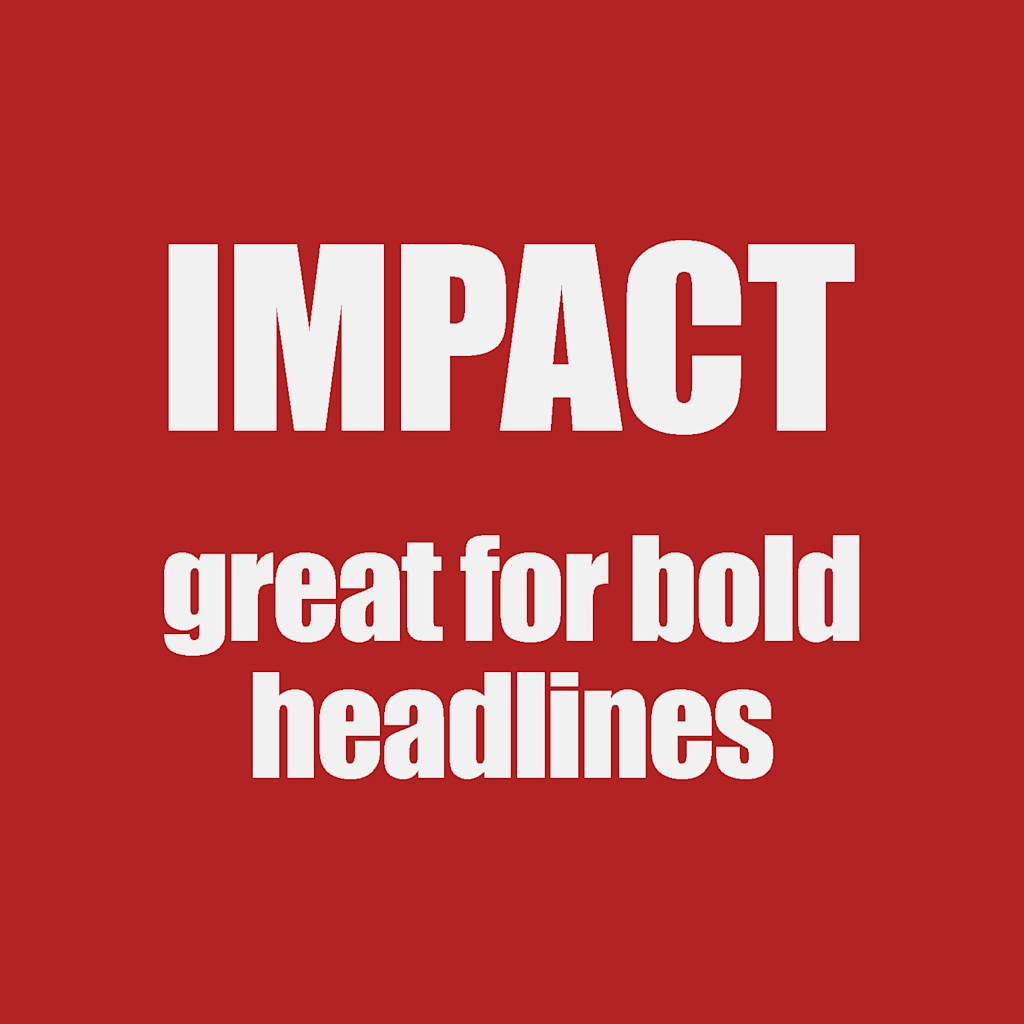
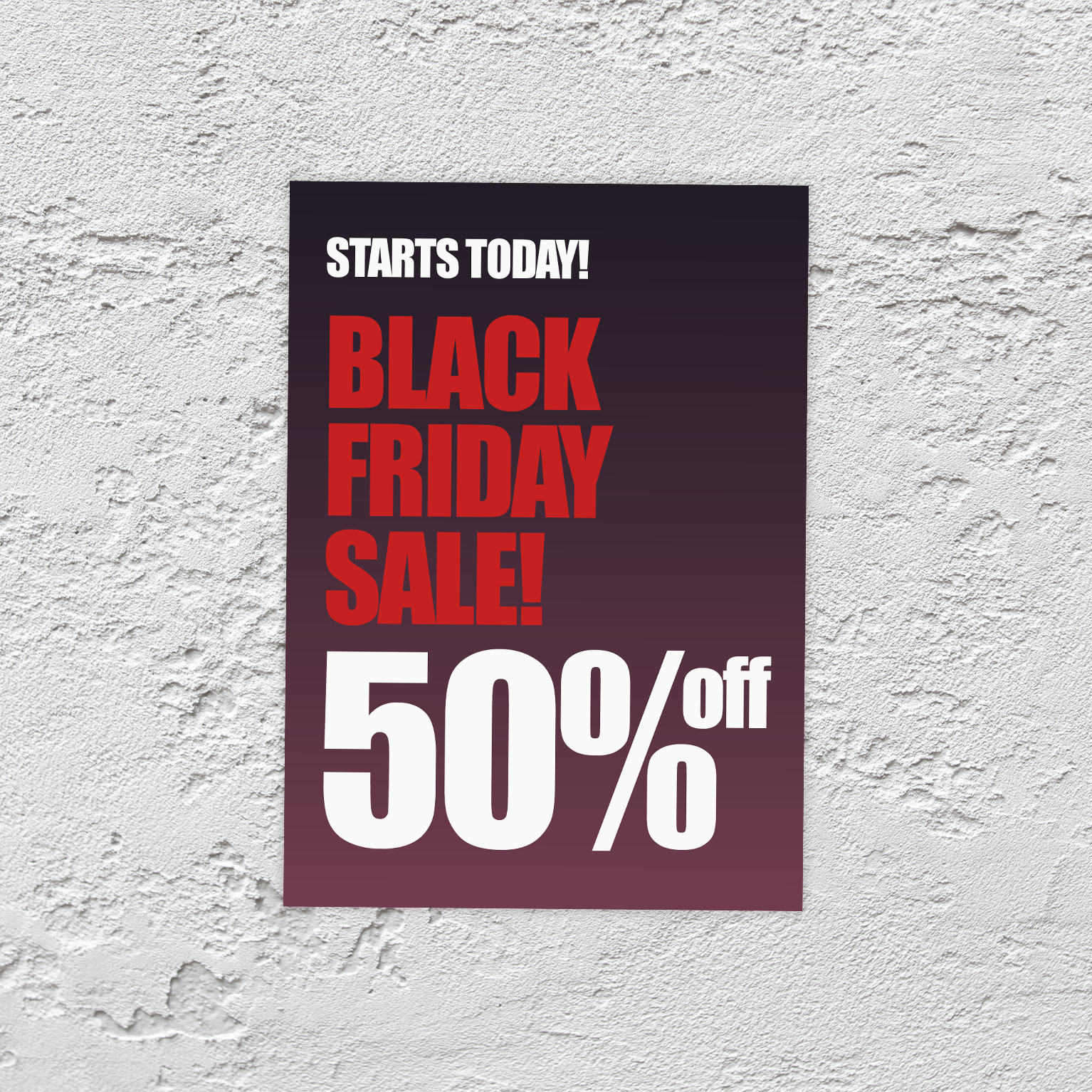
1. Impact
Why it works: Thick strokes and a tight structure make it great for bold headlines.
Best for: Sales posters, promotions, event announcements.
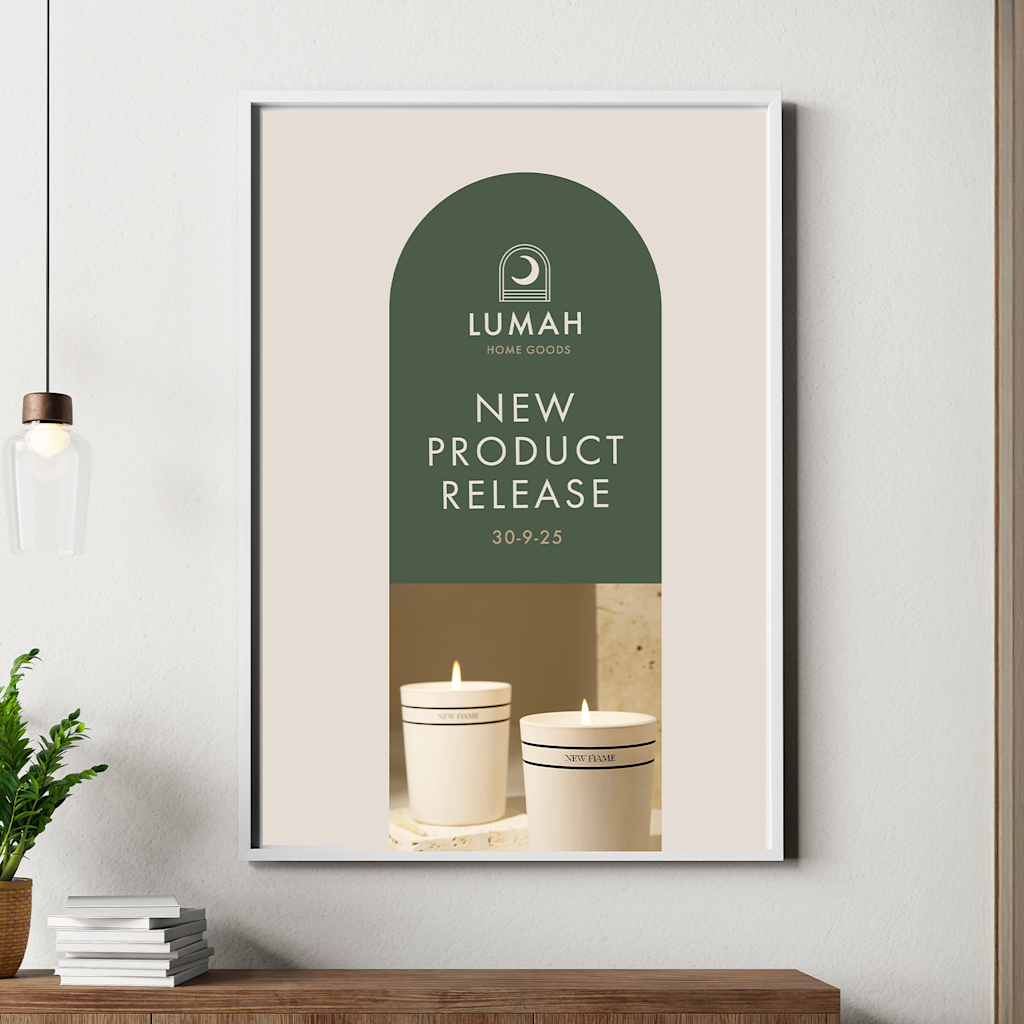
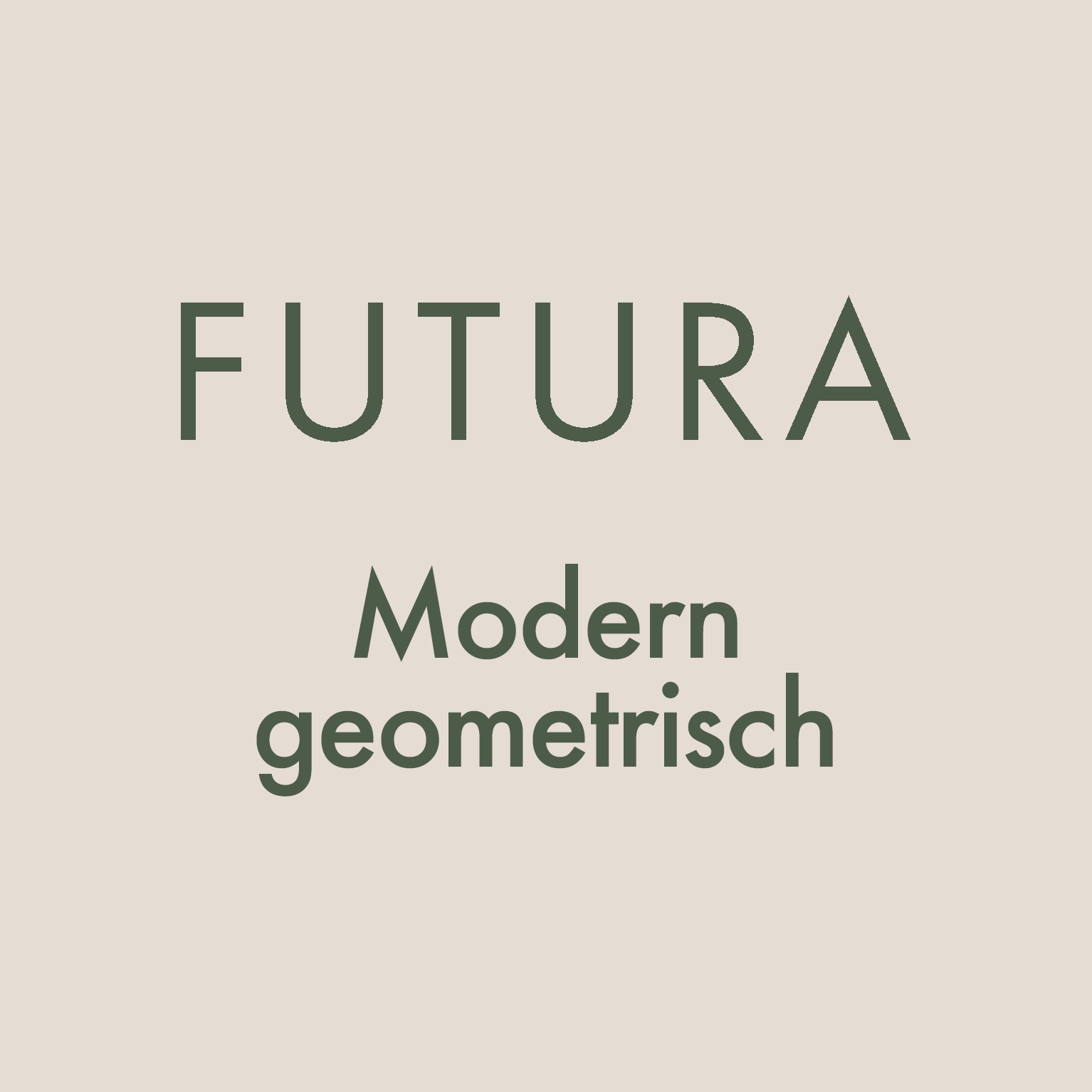
2. Futura
Why it works: Modern, geometric style with clean lines that give a professional feel.
Best for: Product launches, contemporary brands, sleek layouts.
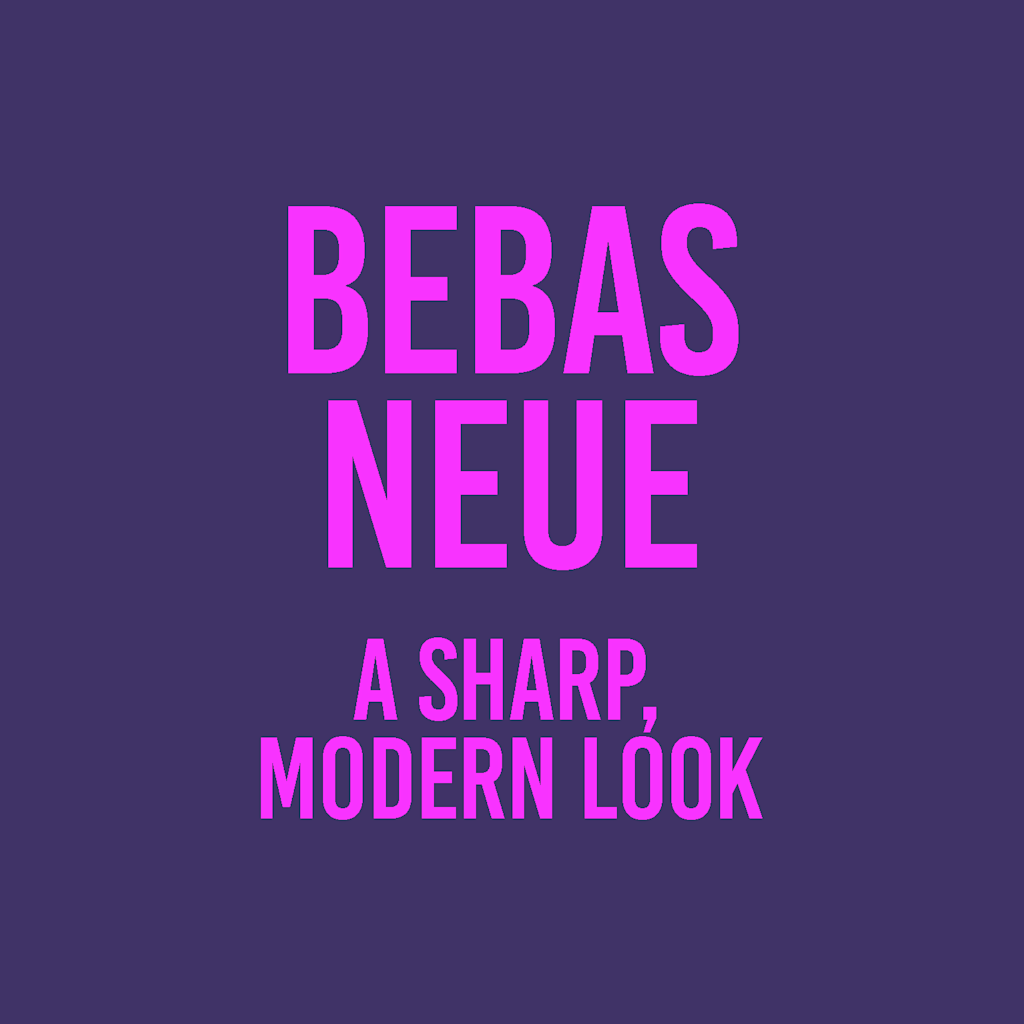
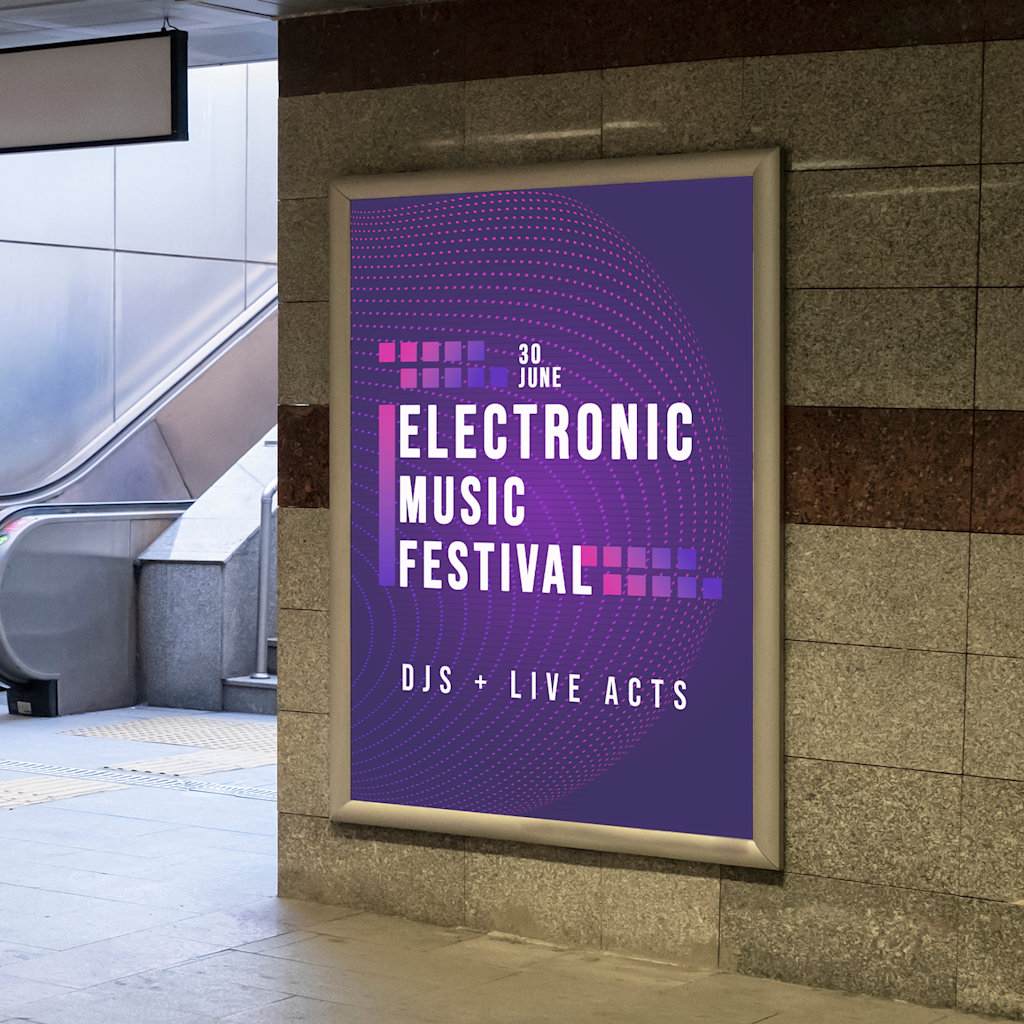
3. Bebas Neue
Why it works: All-caps sans serif font with a sharp, modern look.
Best for: Music events, film posters, creative businesses.
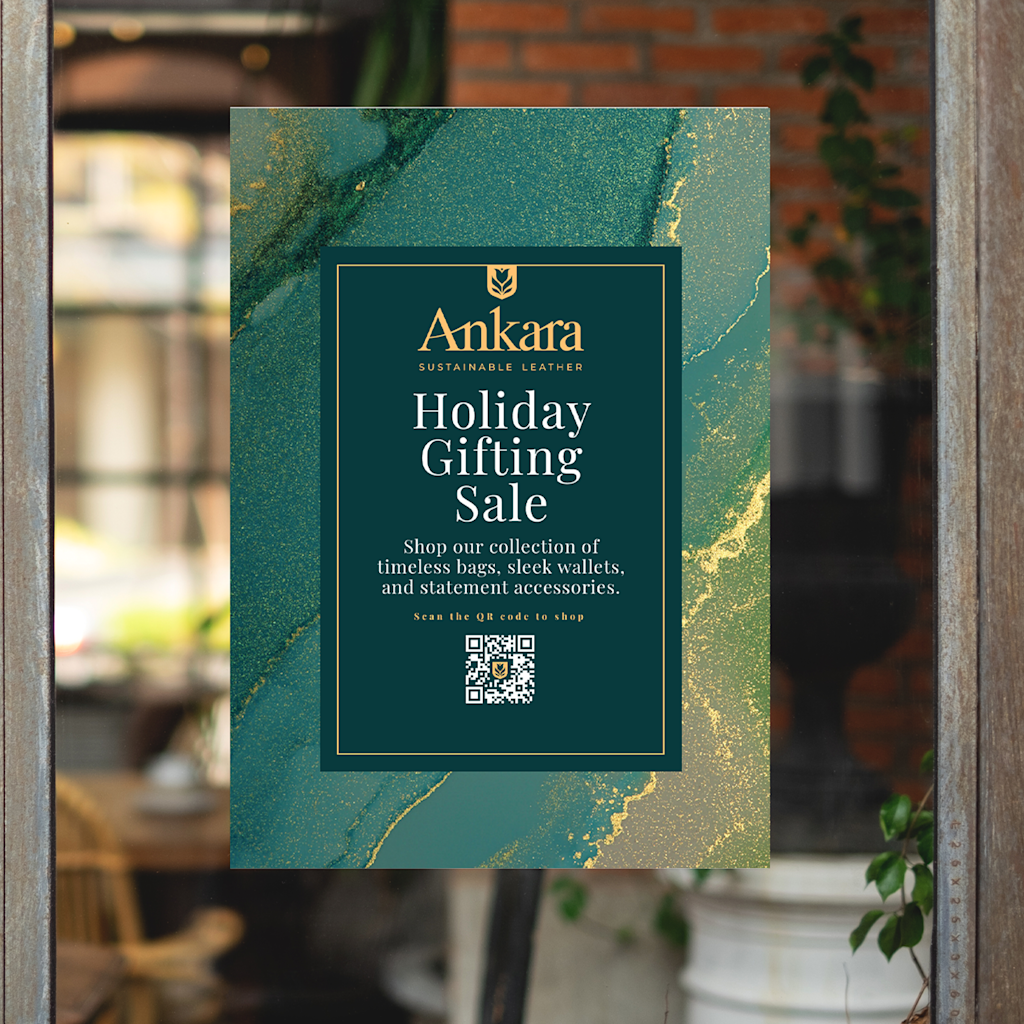
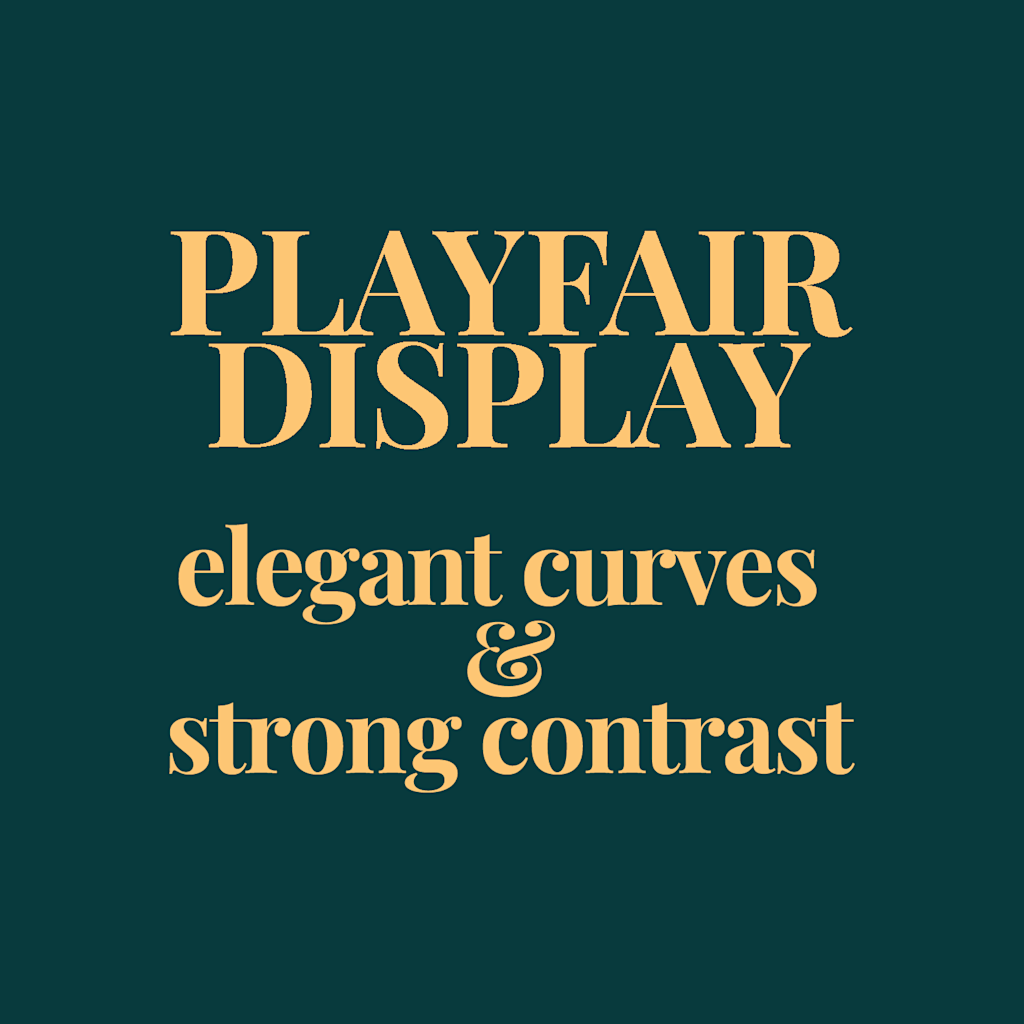
4. Playfair Display
Why it works: Stylish serif font with elegant curves and strong contrast.
Best for: Luxury brands, beauty industry, invitations.
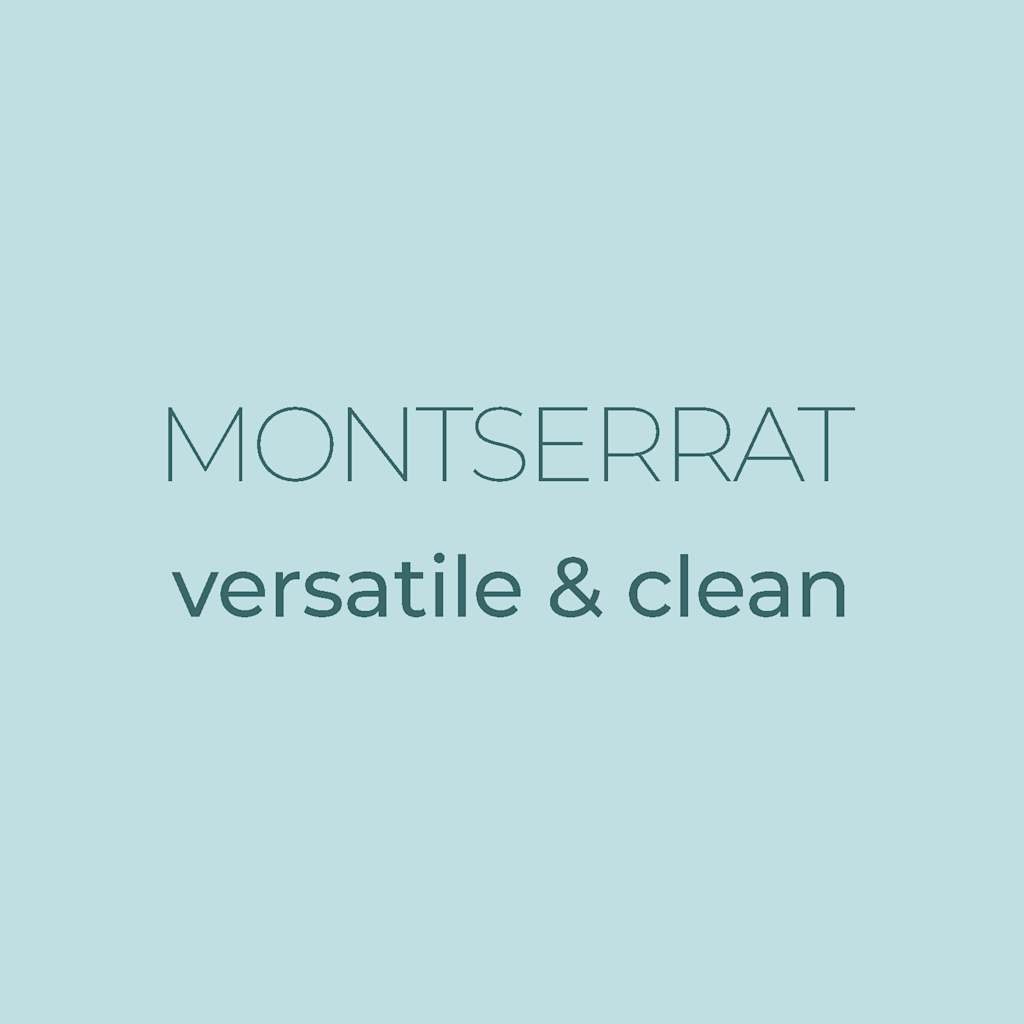
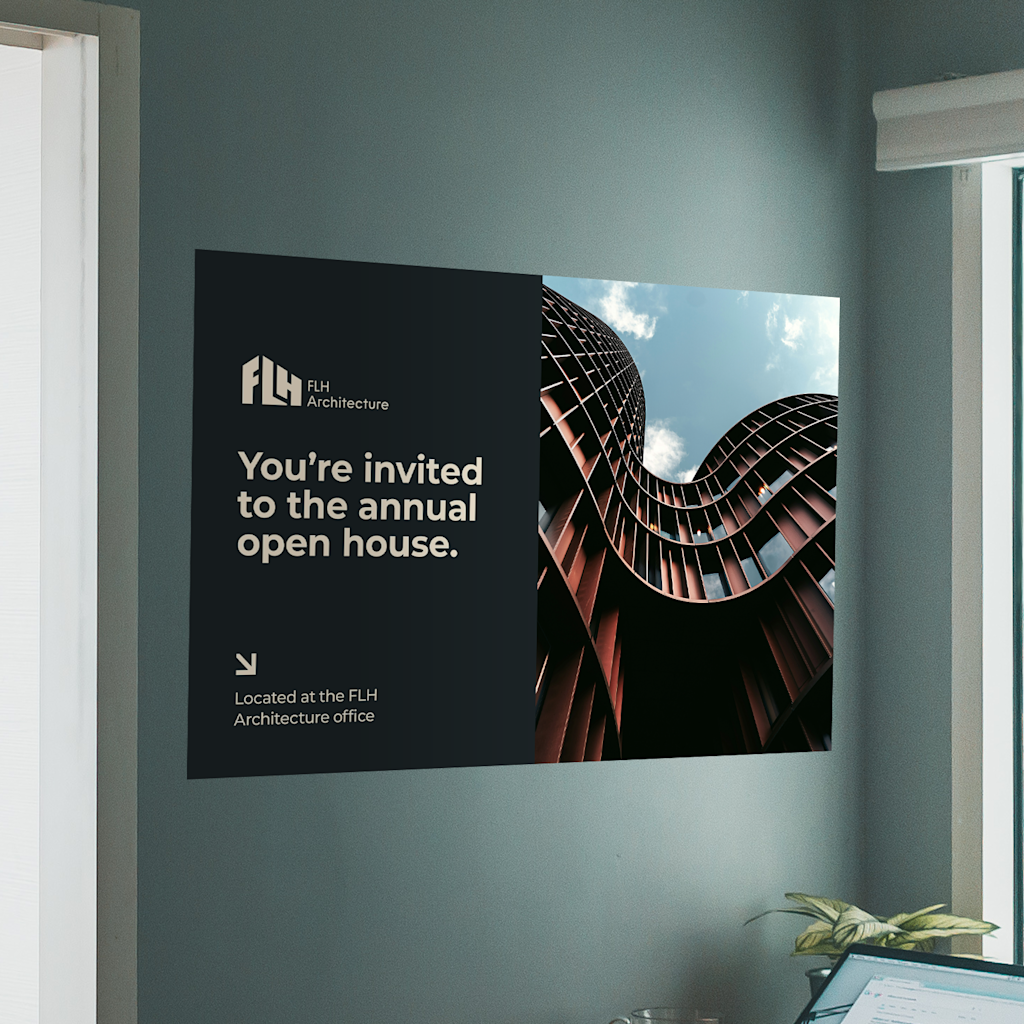
5. Montserat
Why it works: Versatile and clean. Works well in both large headlines and smaller text.
Best for: Corporate posters, real estate, start-ups.
6. Raleway
Why it works: A balance of personality and clarity. Elegant with a modern touch.
Best for: Wedding fairs, boutique businesses, artisan products.
7. Anton
Why it works: Built specifically for headlines, with tight spacing and bold forms.
Best for: Flash sales, gym promotions, strong calls to action.
8. Abril Fatface
Why it works: A bold serif with high contrast and dramatic curves. Eye-catching and stylish.
Best for: Fashion promotions, food posters, special events.
Tips for choosing the right poster font
- Match your brand voice. A playful business might suit a rounded or handwritten style, while a formal one benefits from clean, sharp lines.
- Pair fonts thoughtfully. Use a bold font for the headline and something simpler for supporting text.
- Avoid overcomplicating. One or two fonts per poster is enough.